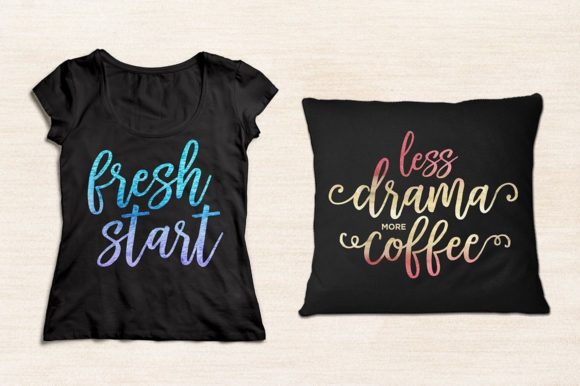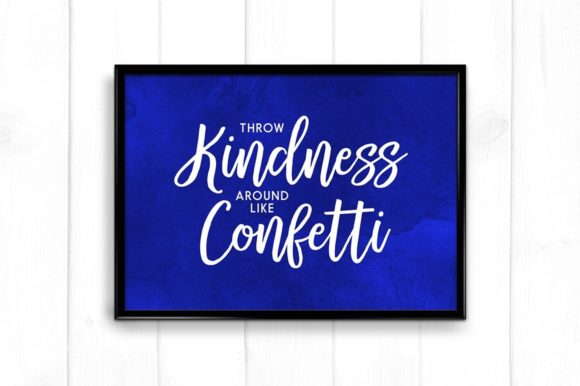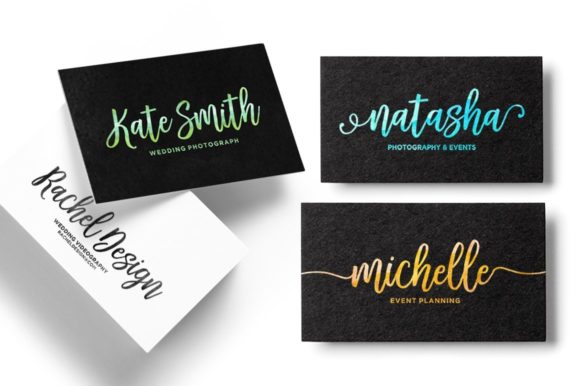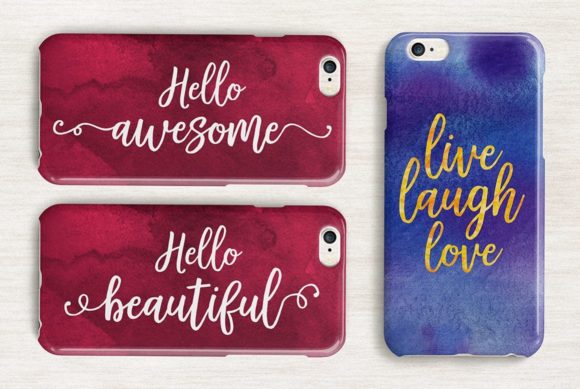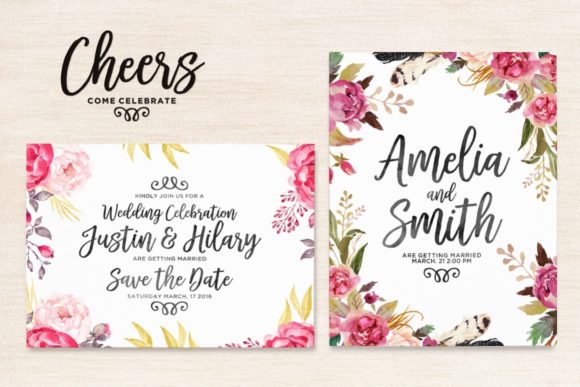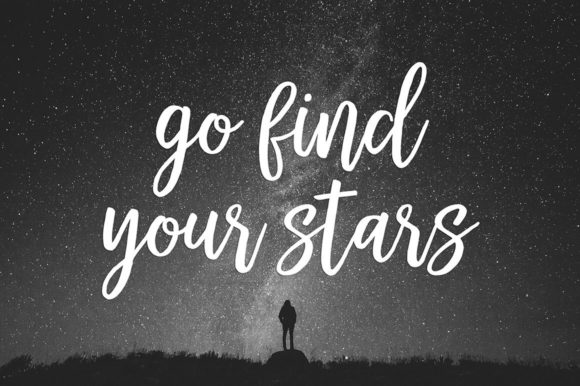
About Hello Sweets Font
Hello Sweets is a delicate and vintage styled script font. Fall for its ravishing style and use it to create gorgeous wedding invitations, beautiful stationary art, eye-catching social media posts, and much more!